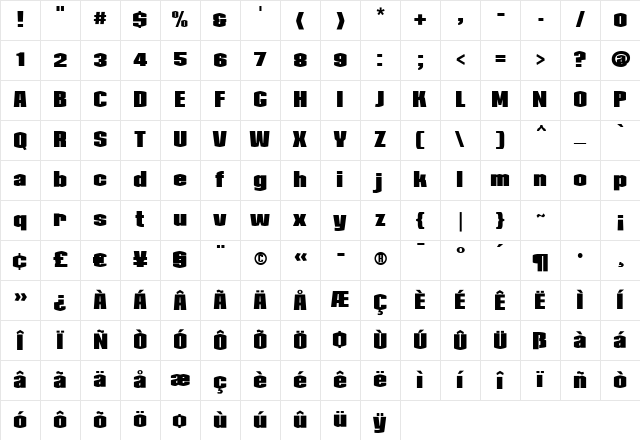
Collos Regular Free Font
Collos Regular
Complete Collos Regular glyph index. Displaying only characters natively supported by Collos Regular font.
Design Context for Collos
Collos is a composed and adaptable typeface that performs quietly and consistently across a wide range of design contexts.